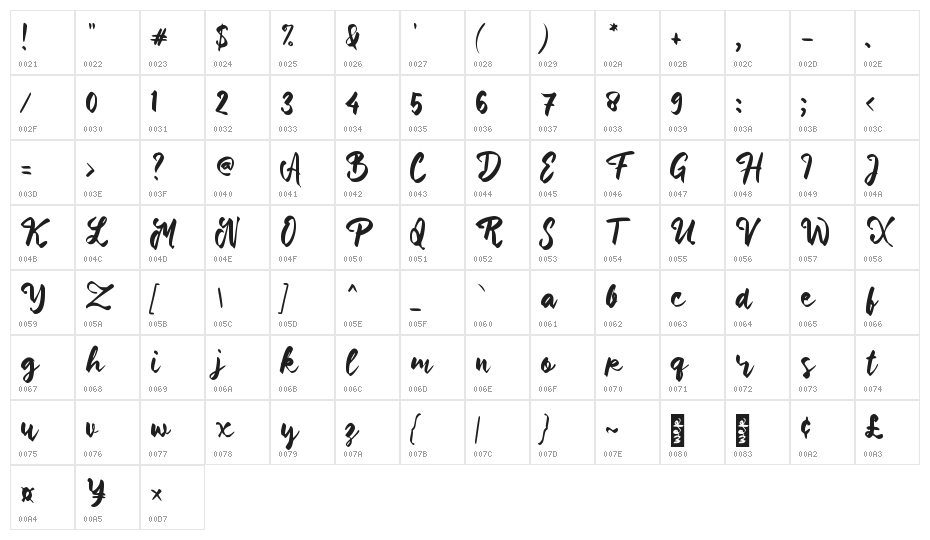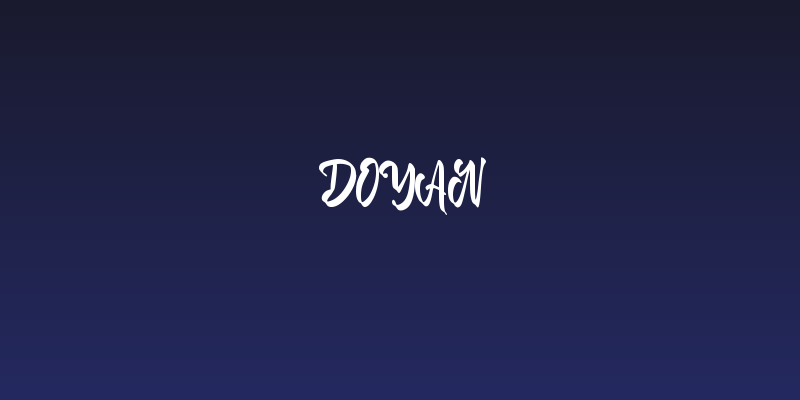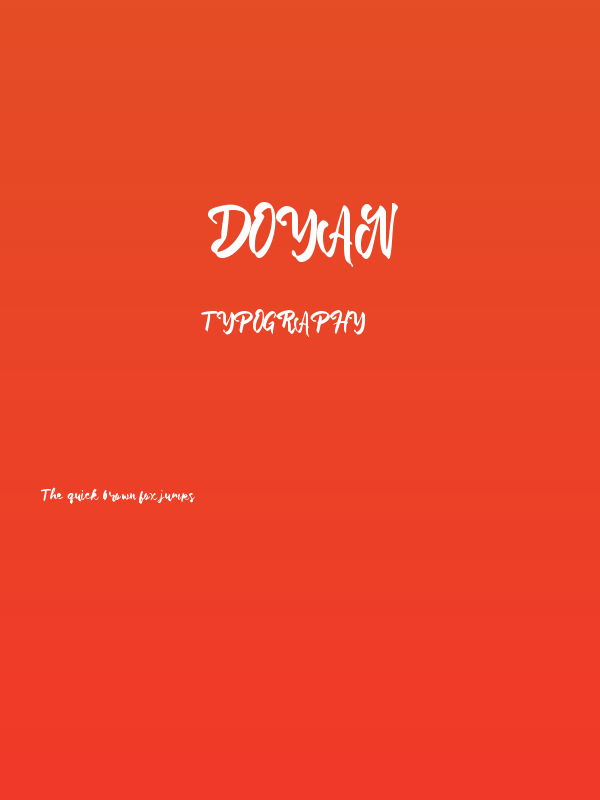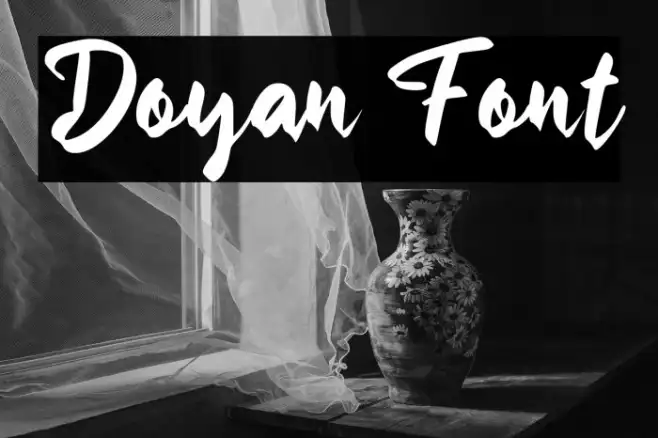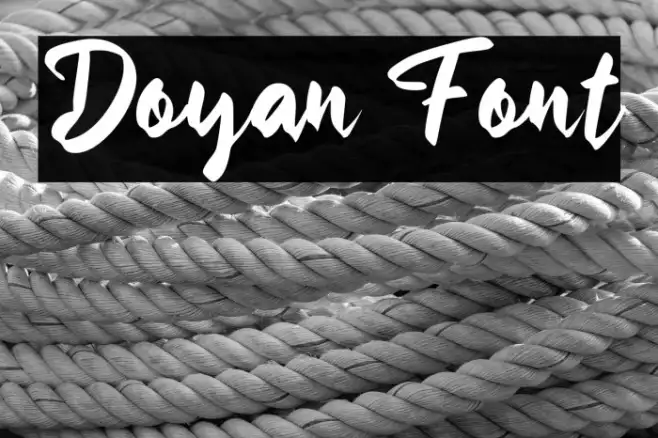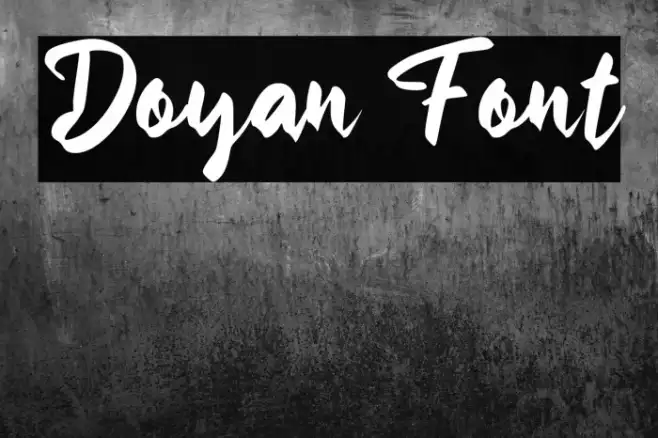
Doyan Font
Doyan Description
This font exhibits a bold and expressive handwritten style, characterized by its fluid and dynamic strokes. The uppercase letters are prominent and slightly slanted, giving a sense of motion and energy. The lowercase letters maintain a consistent flow, with some characters featuring unique loops and curves that add to the font's personality. The numerals are equally bold, maintaining the same lively style as the letters. Special characters are well-integrated, matching the overall aesthetic. This font's boldness and style make it ideal for attention-grabbing designs.
| Proposed Projects | Ideal for branding, logo design, posters, and invitations where a personal and energetic touch is desired. |